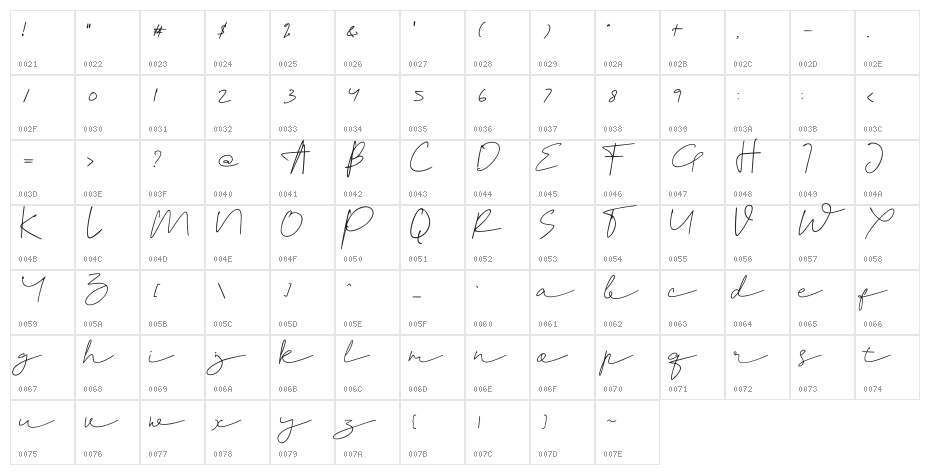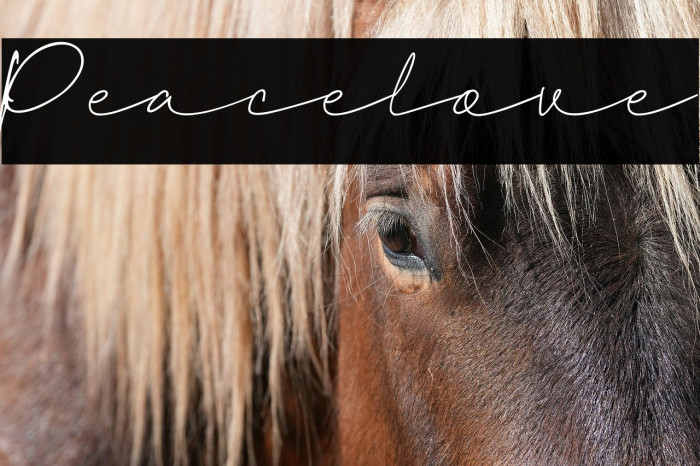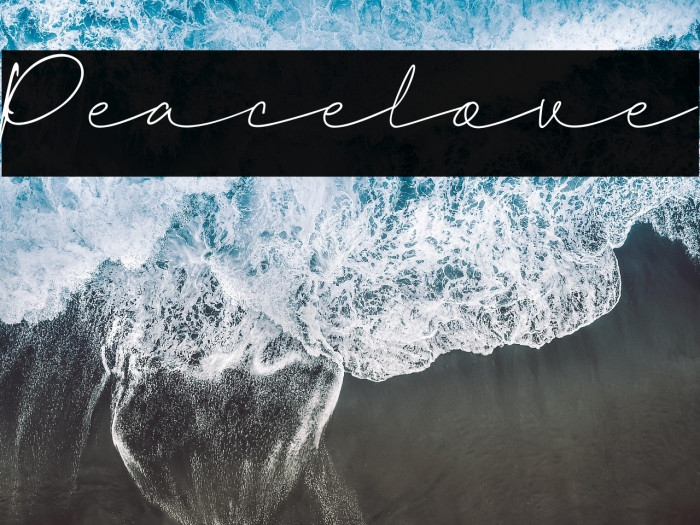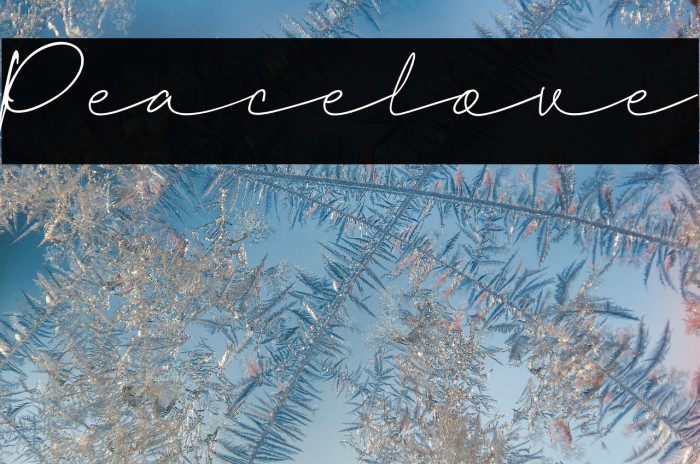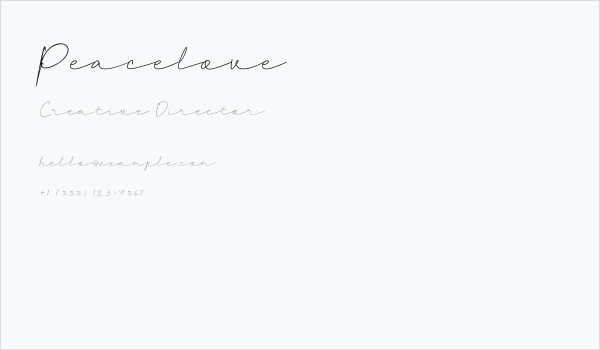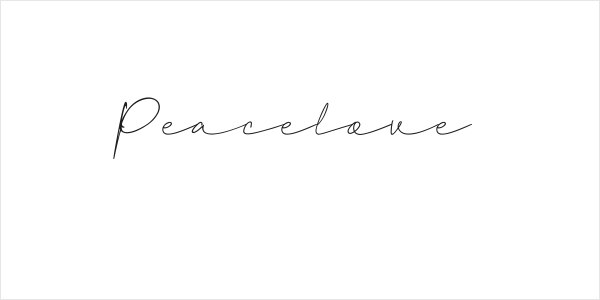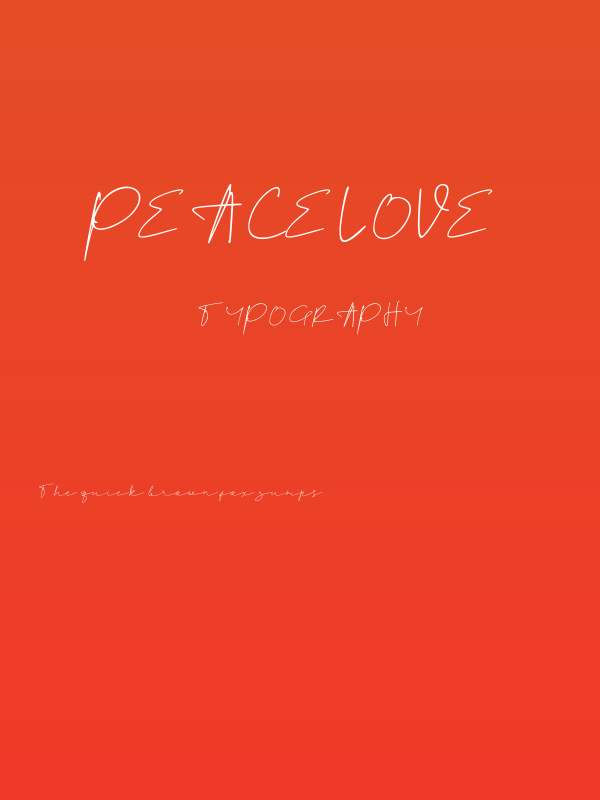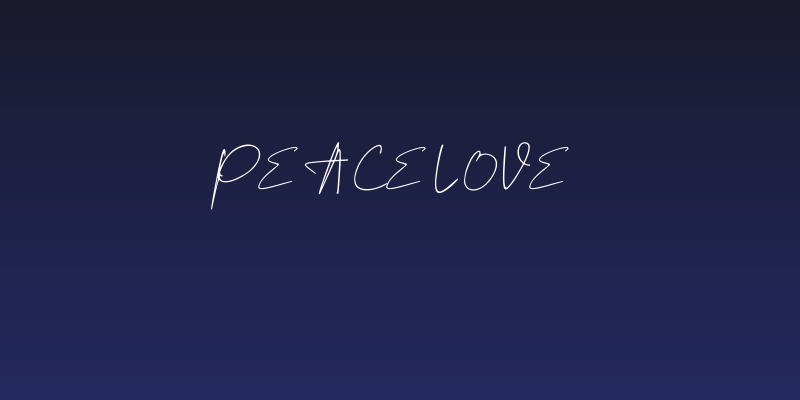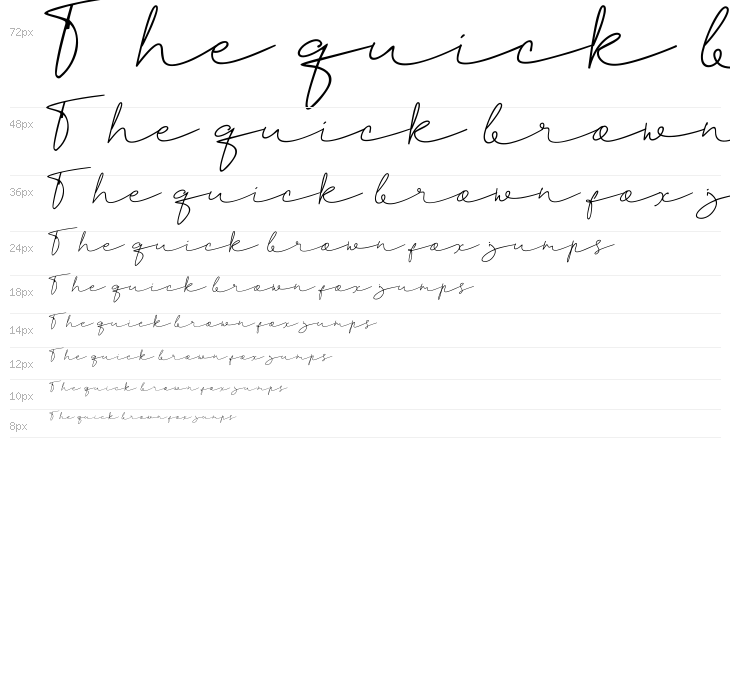
Peacelove Font
Peacelove Description
This font features a handwritten, cursive style with a casual and flowing appearance. The letters are connected, giving it a natural and personal touch, reminiscent of a quick note or a personal letter. The strokes are thin and consistent, with a slight variation that adds to its charm. It maintains a balanced and airy feel, making it suitable for projects that require a personal or informal tone. The numerals and special characters follow the same handwritten style, ensuring consistency across all elements.
| Use Case | Invitations, Greeting cards, Personal notes |
| Proposed Projects | Ideal for personal letters, invitations, greeting cards, and informal branding projects. |